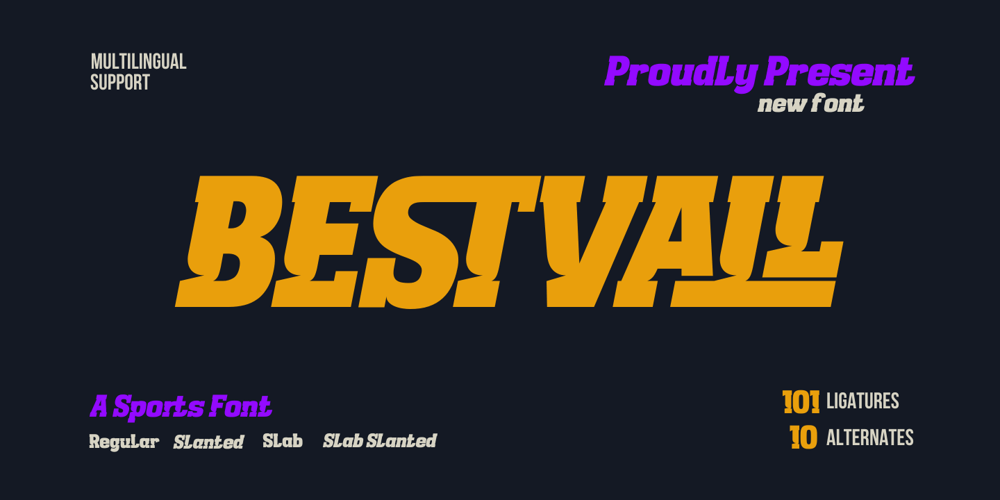
Bestvall
Bestvall font
Bestvall Font Family was designed by Rozikan and published by Twinletter. Bestvall contains 4 styles and family package options. The BESTVALL type family is a highly athletic and dynamic typeface capable of evoking the energy of sport in its literal and historical form. Building on traditional athletic typefaces, BESTVALL font implements new shapes inspired by historical trends and modern typography, giving it the ability to add personality to any set of words. Features include slab and display types, oblique styles, multiple ligatures, and style alternatives.This display typeface has been designed to stand out and grab the attention of a wide audience.What’s Included :- All glyphs Iso Latin 1- Alternate, Ligature- Simple installations- We highly recommend using a program that supports OpenType features and Glyphs panels like many Adobe apps and Corel Draw, so you can see and access all Glyph variations.- PUA Encoded Characters – Fully accessible without additional design software.- Fonts include Multilingual support